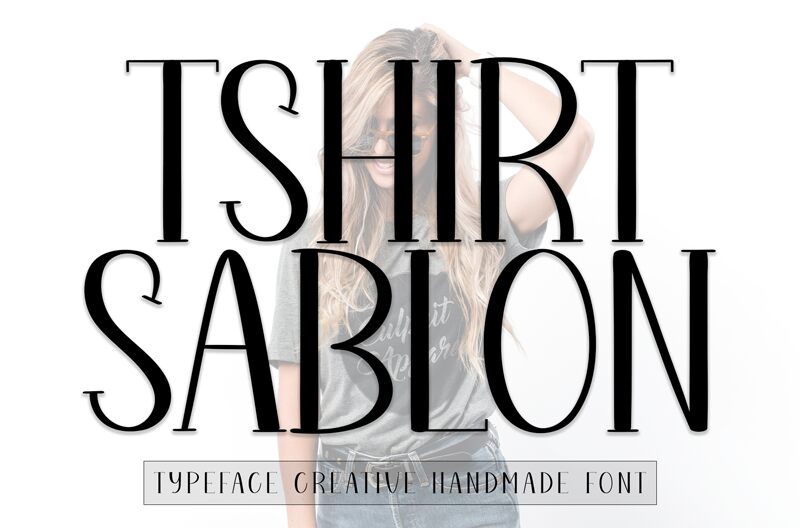
Tshirt Sablon
Tshirt Sablon is a charming, handwritten display font crafted by designer Andi Moz. With its playful strokes and a touch of whimsy, this condensed font exudes a sweet and friendly aesthetic, creating a delightful visual impression.
Tshirt Sablon's distinctive style lends itself beautifully to a range of design projects, from wedding invitations and greeting cards to product packaging and promotional materials. Its versatility allows designers to infuse a sense of warmth and approachability into their creations, making it an ideal choice for designs that require a touch of personality and character.